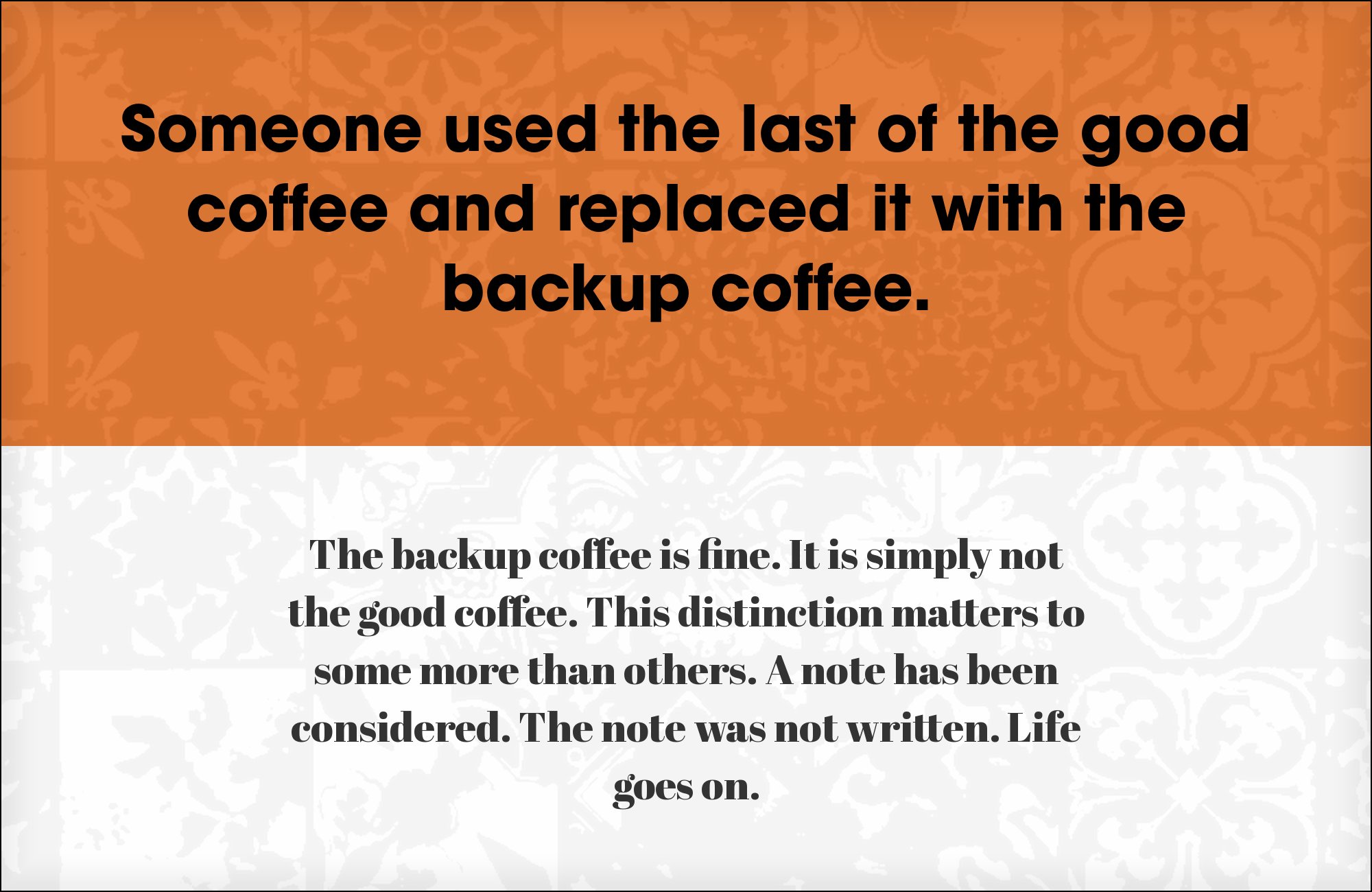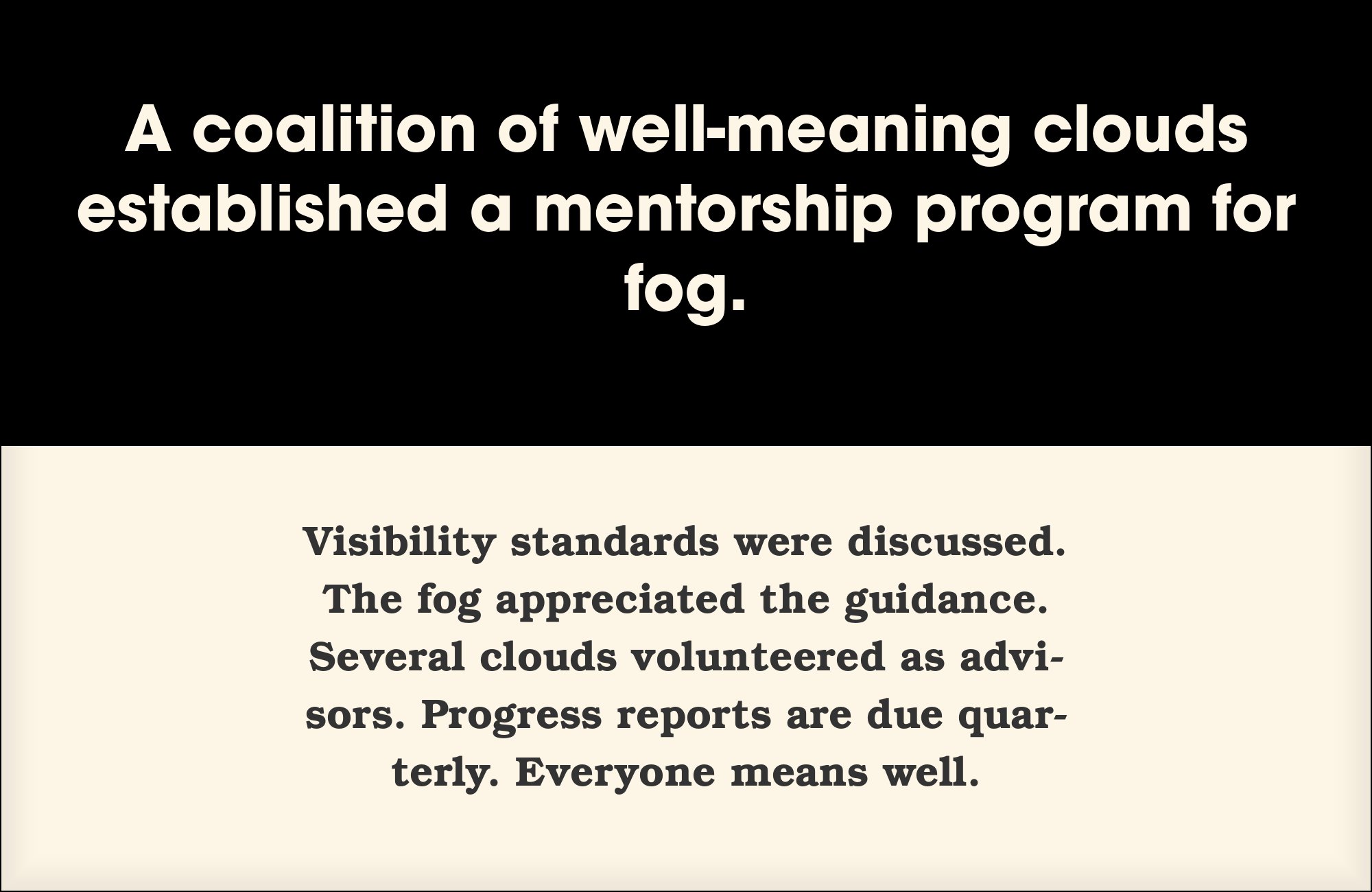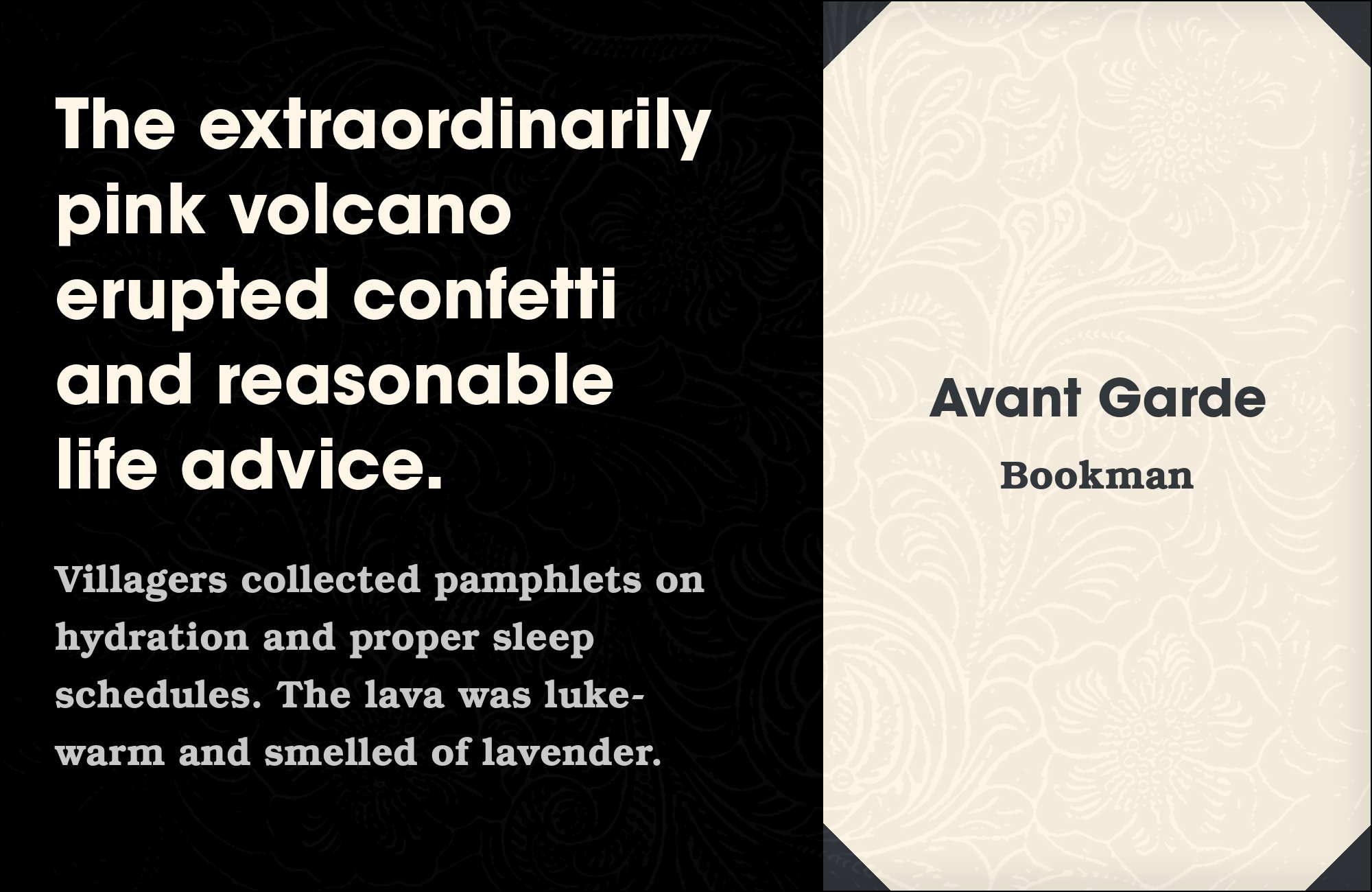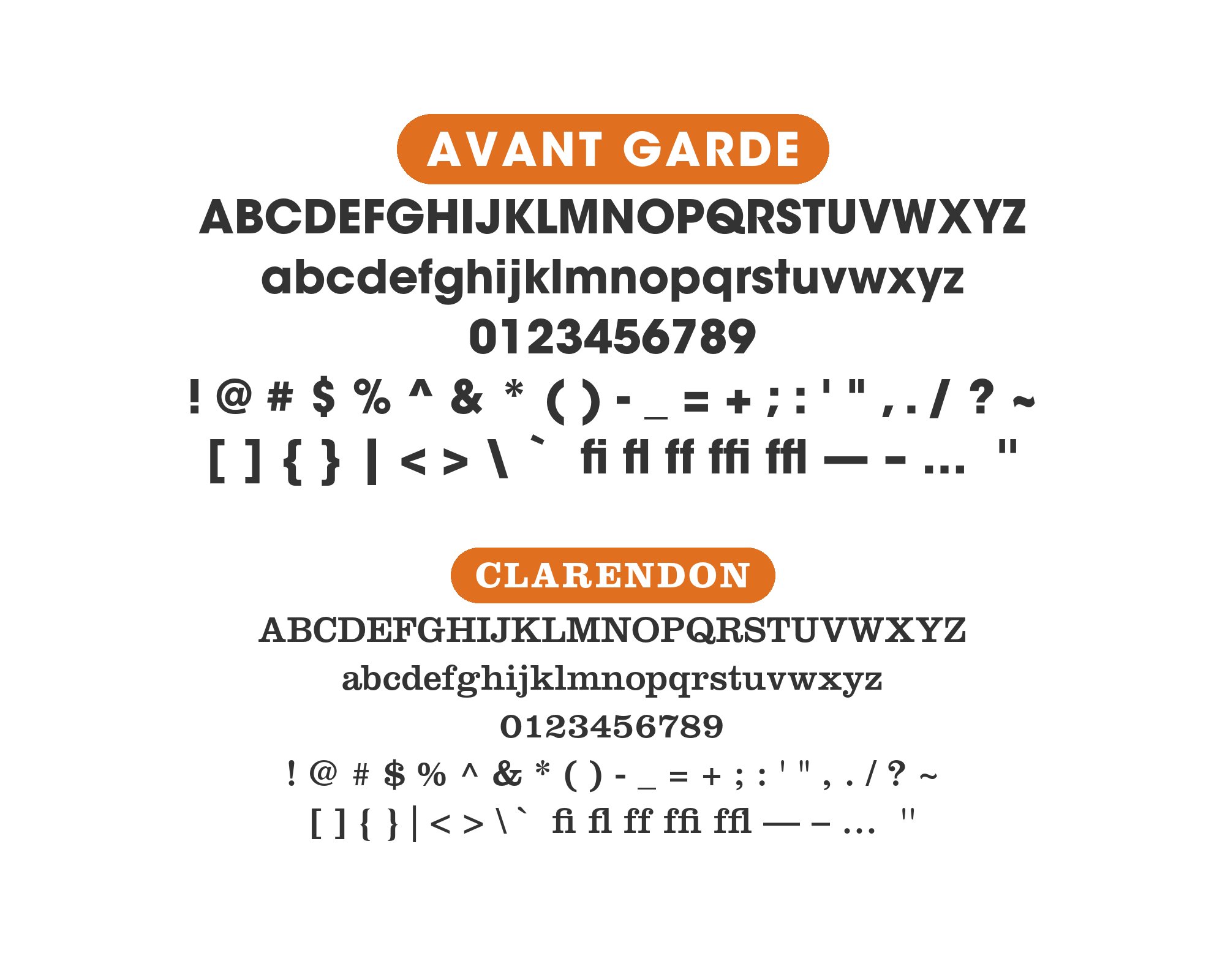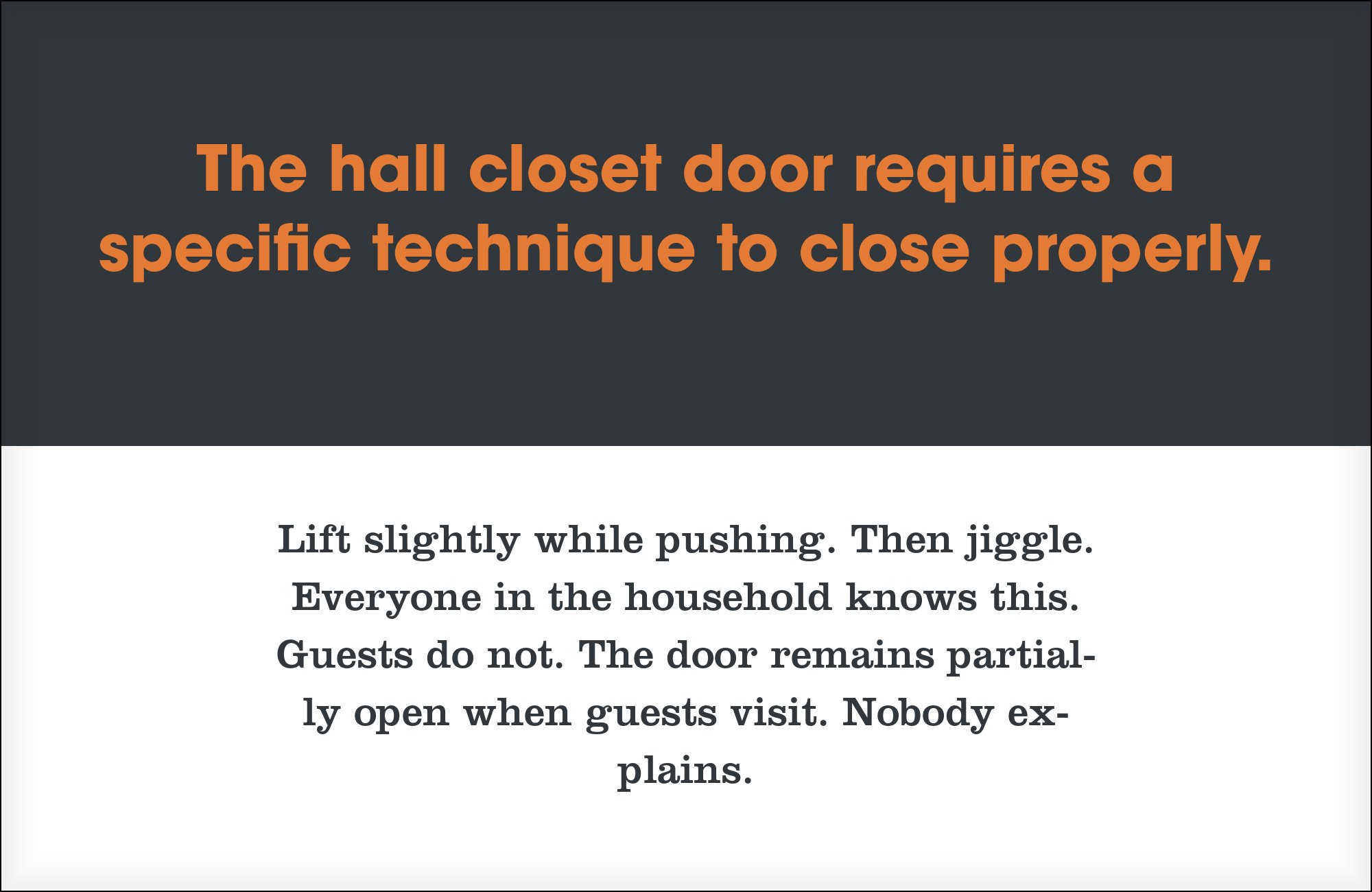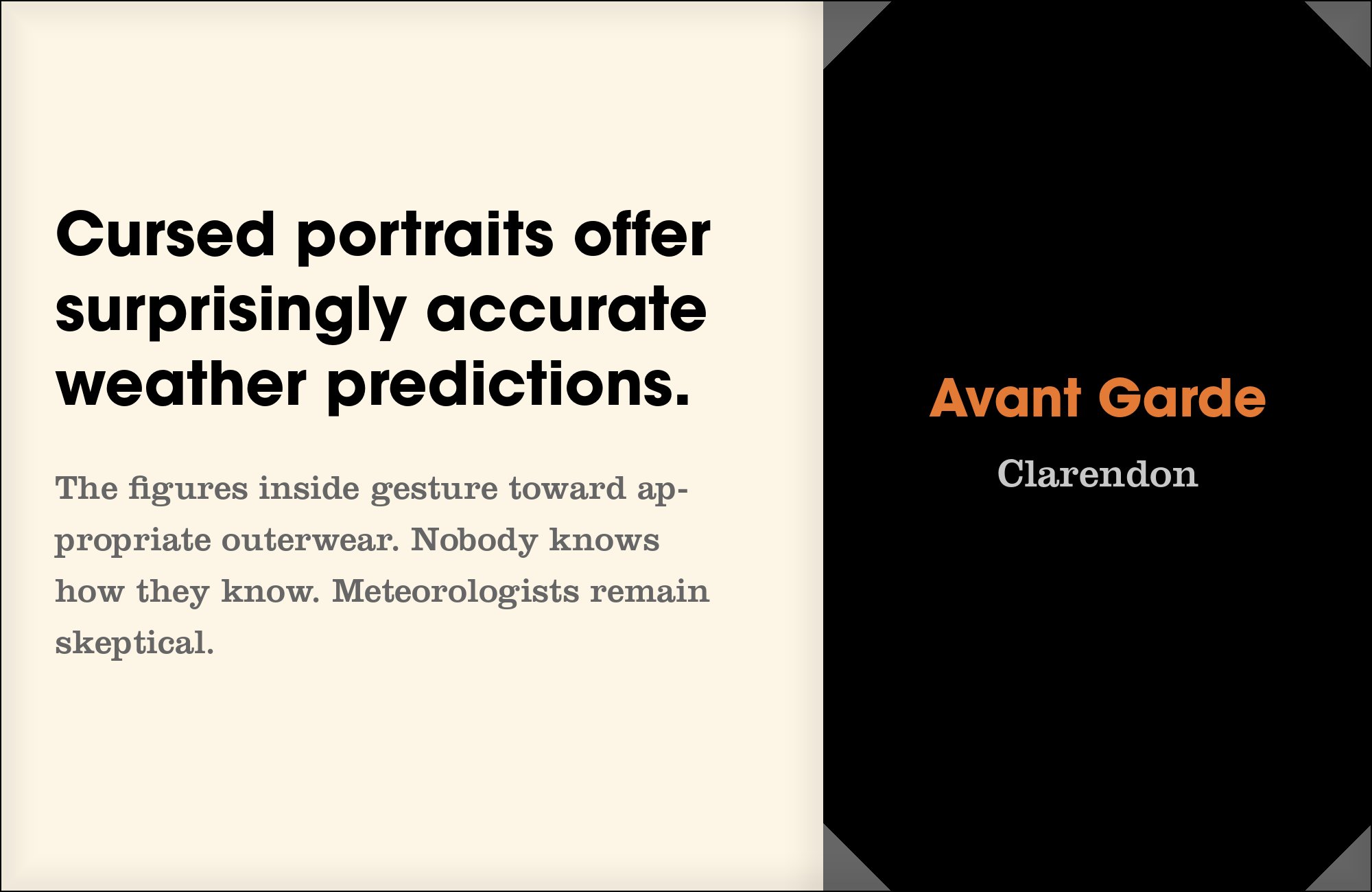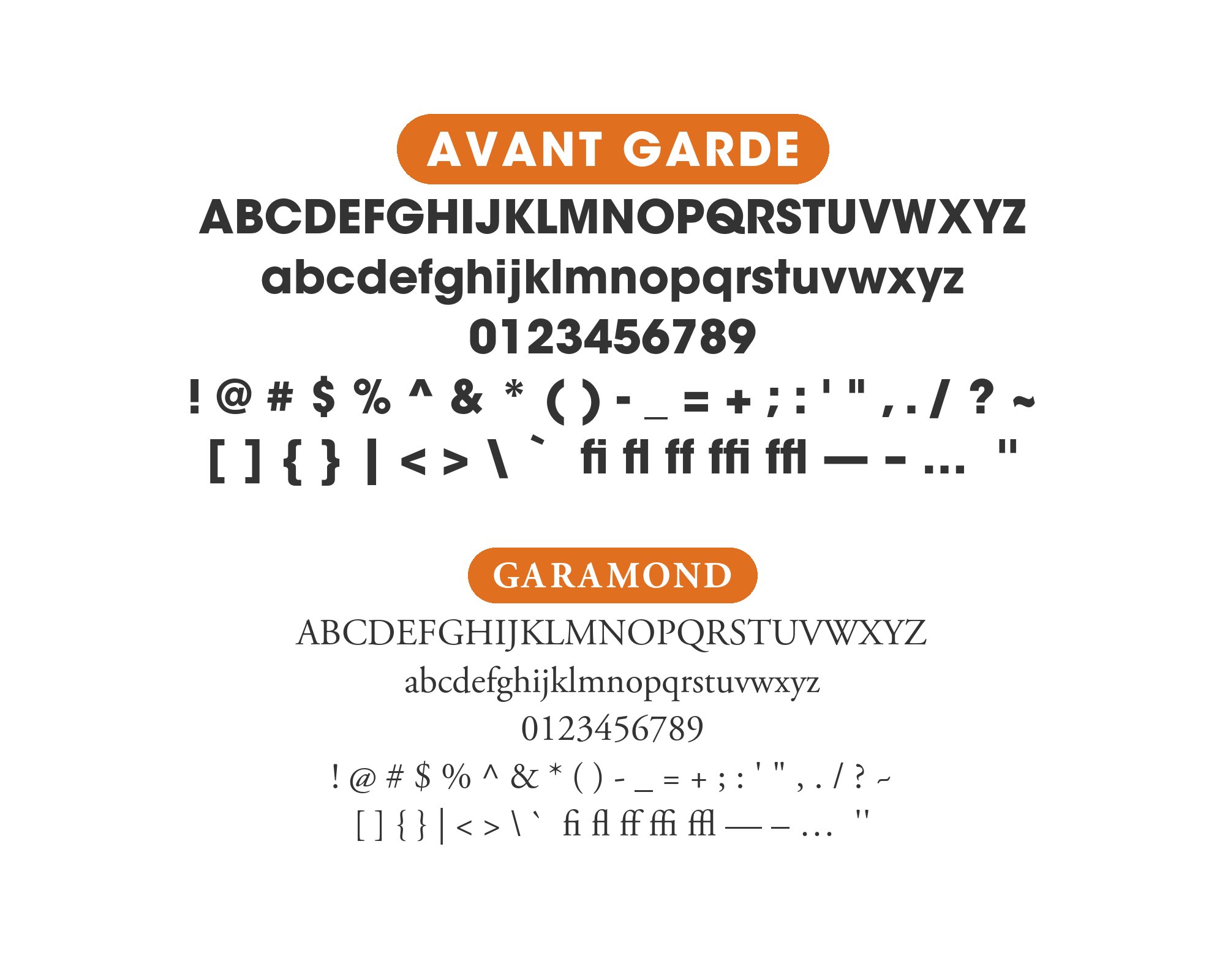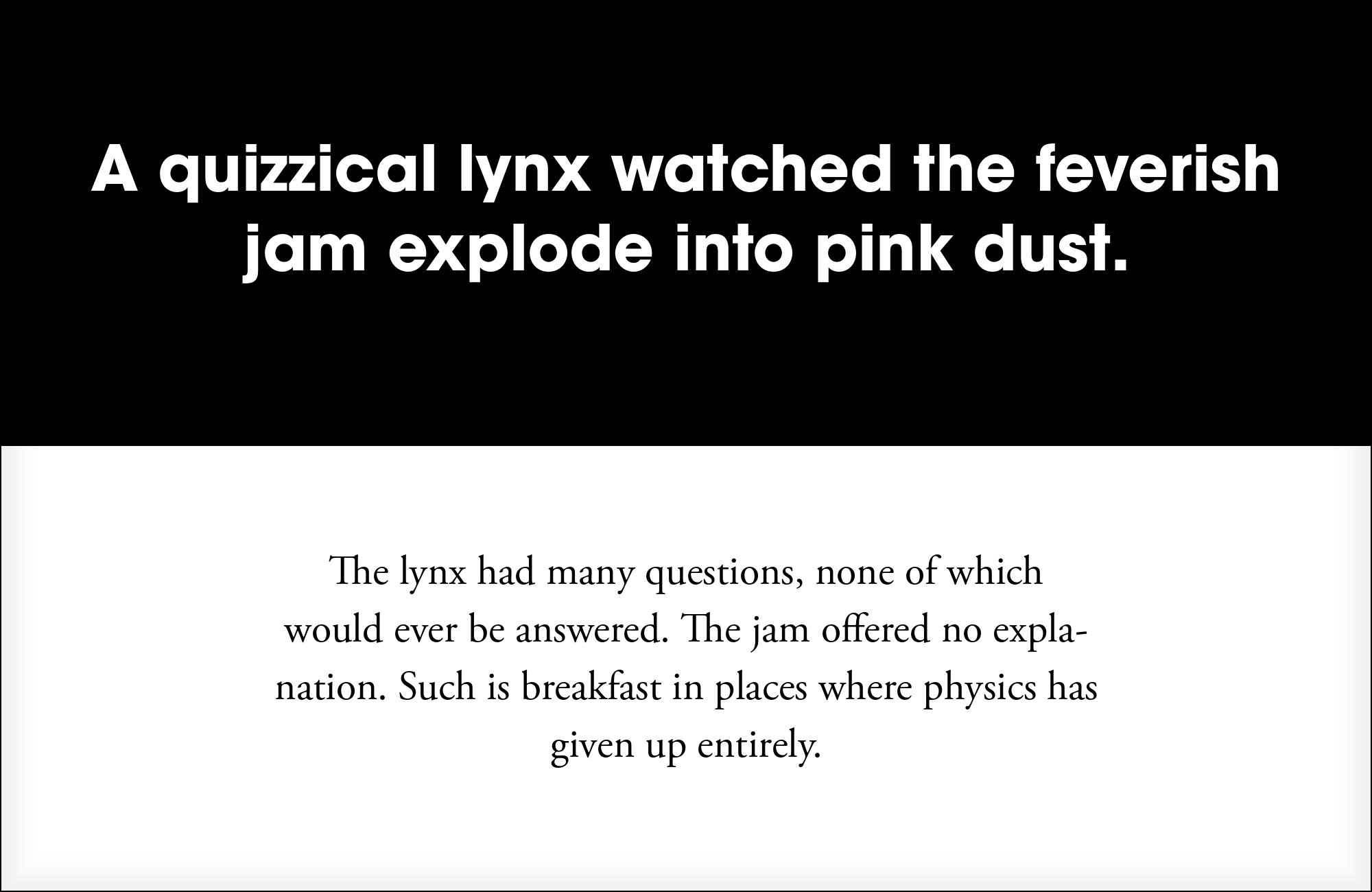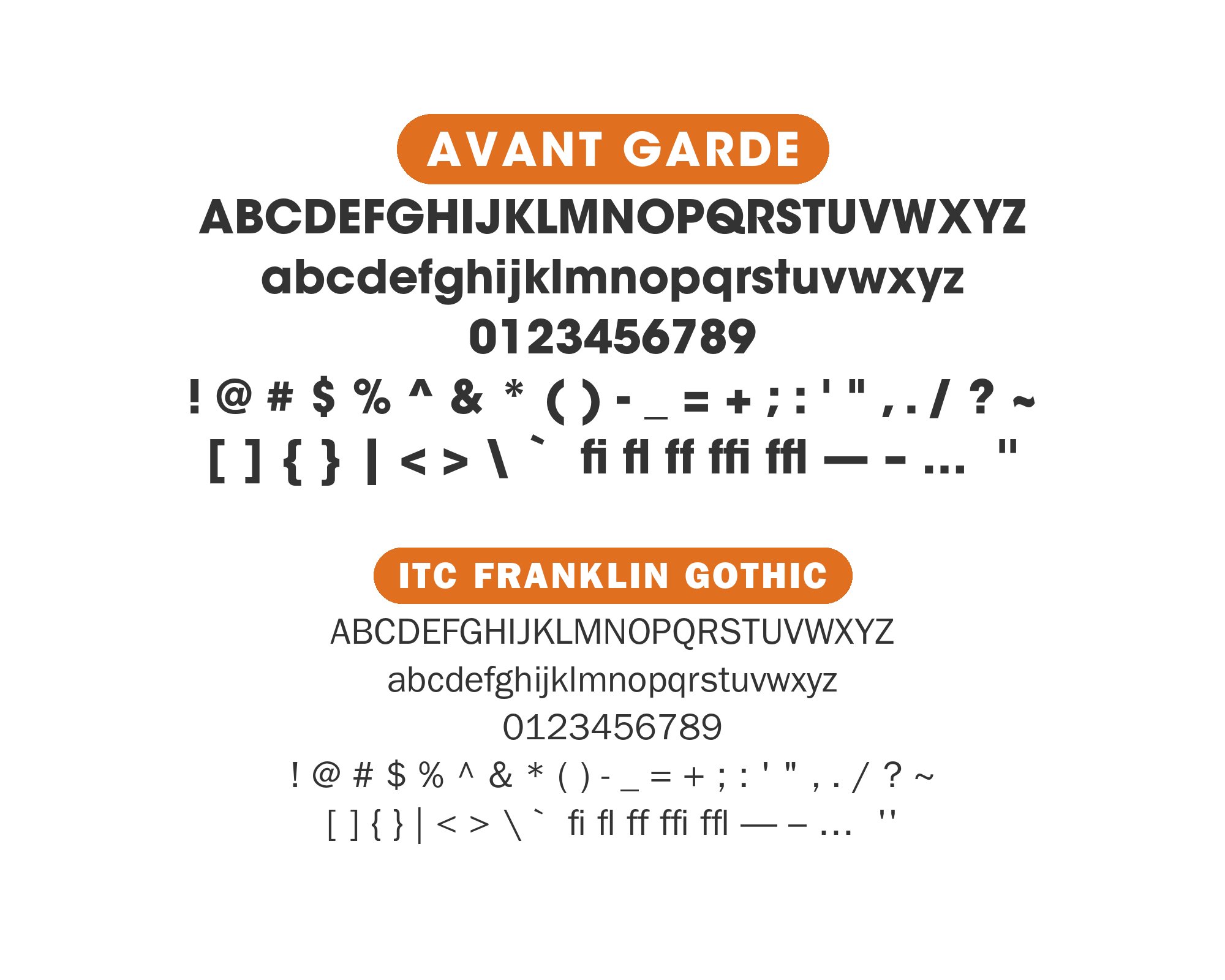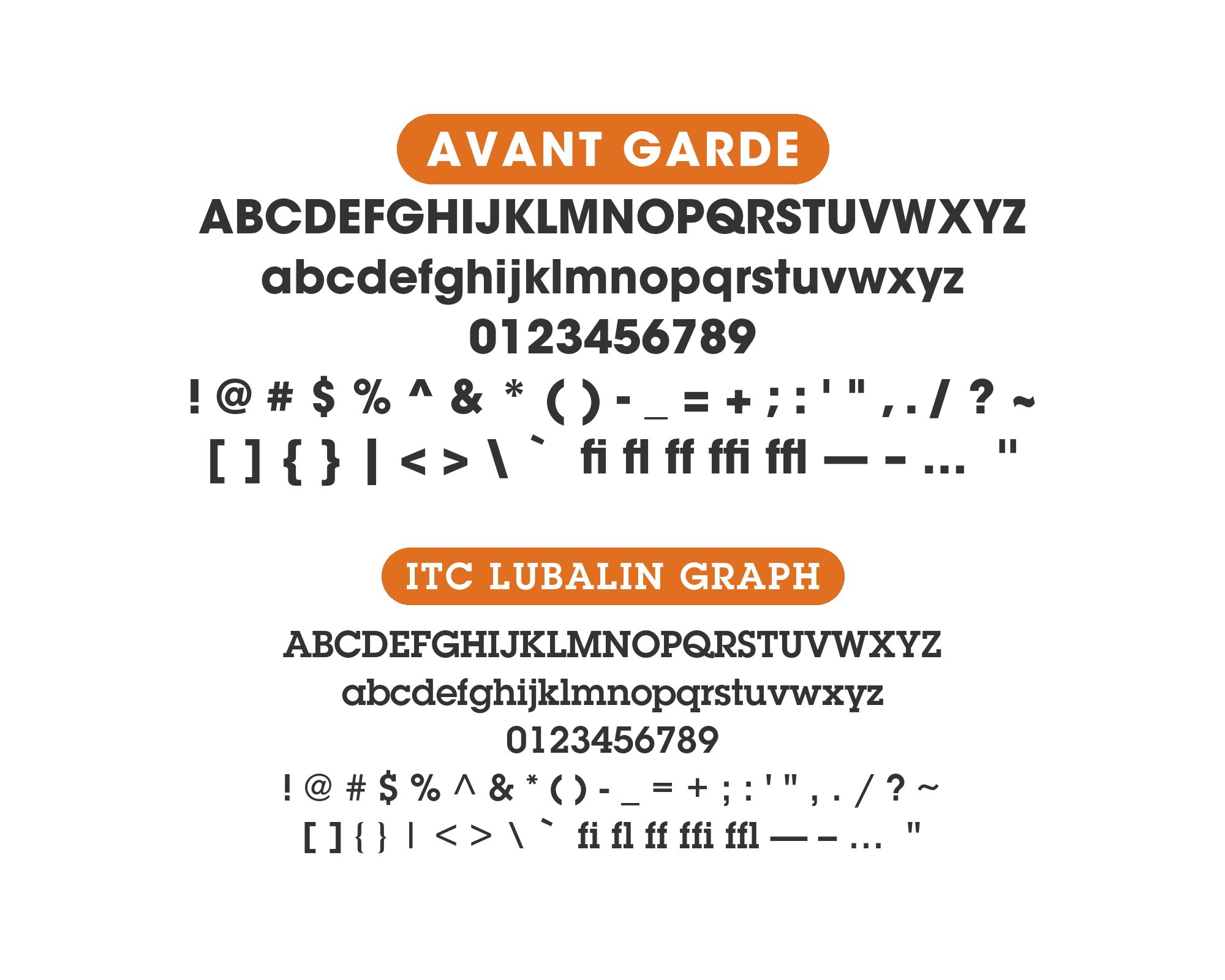
Avant Garde pairs great with Questrial, Bookman and Garamond. All 9 pairings are shown below in real rendered specimens, with the reason each one works.
What fonts go with Avant Garde? 9 pairings are shown below, each with a reason it works.
Avant Garde is a working typeface, not a novelty. Here are 9 fonts that pair well with Avant Garde.
1. Questrial
Questrial’s rounded, moderately geometric letterforms are far calmer than Avant Garde’s perfect circles and interlocking ligatures, so it settles comfortably into long body text while Avant Garde stays reserved for display sizes where that dense, retro-futurist geometry reads as stylish rather than cramped.
2. Bookman
A sturdy, old-style slab-ish serif with generous curves gives Avant Garde’s rigid geometric circles a warmer, more literary counterweight for body copy — a pairing distinctive enough that it turns up as a dedicated recommendation on its own.
3. Garamond
Garamond’s old-style, calligraphic curves and moderate stroke contrast come from centuries before Avant Garde’s compass-and-ruler geometry, so the pair stages a deliberate generation gap: Garamond quietly carries reading-length text while Avant Garde stays reserved for the geometric display moments that need 1970s attitude.
4. ITC Lubalin Graph
Herb Lubalin had a hand in both faces, and Lubalin Graph is essentially Avant Garde Gothic’s own construction logic redrawn with slab serifs — same circular bowls, same tight fit — so the pairing reads as a family relationship rather than a contrast, letting a project keep Avant Garde’s futurist voice in headlines while a serif carries supporting text without breaking the visual DNA.
5. Helvetica Neue
Helvetica Neue is about as close to typographic neutrality as a sans serif gets, so stacking it against Avant Garde’s idiosyncratic ligatures and perfectly round bowls throws Avant Garde’s personality into relief — Helvetica Neue disappears into paragraphs and captions, leaving all the visual character to the display type.
6. ITC Franklin Gothic
A grotesque built on completely different construction logic (drawn strokes, not compass-and-ruler geometry) keeps a headline set in it from blurring into Avant Garde elsewhere on the same page — the two appear together on The Avalanches’ 2016 “Wildflower” album art, where ITC Franklin Gothic sets the front-cover sticker text and one back-cover track title is tentatively identified as Avant Garde.
7. Univers
A neutral, workhorse grotesque with none of Avant Garde’s stylized ligatures lets Avant Garde stay the “voice” typeface for a headline or logotype while Univers quietly handles everything else — seen in Tibor Helényi’s Hungarian Star Wars poster series (1979 to 1984), where Avant Garde is the secondary face on the first poster and Univers carries the credits on the sequels.
8. Clarendon
A bracketed slab serif with real historical weight gives a geometric, of-its-moment face like Avant Garde some old-fashioned ballast — used together on the posters for Sydney Pollack’s 1972 “Jeremiah Johnson”, where Avant Garde carries the supporting titling.
9. Abril Fatface
Abril Fatface’s extreme thick-thin contrast and wide Didone bowls sit at the opposite structural pole from Avant Garde’s tight, monoline geometry, so the two work through contrast rather than kinship — Abril Fatface carrying dramatic display weight, Avant Garde reserved for a geometric logotype or accent nearby.
There are no absolute rules for font pairing, just principles to guide you. The key is contrast—in weight, in style (serif vs. sans-serif), or in personality. Avant Garde is versatile enough to play well with many different typefaces.
Trust your eye, experiment freely, and remember that the best pairing is the one that serves your content and audience. Typography should enhance communication, not complicate it.